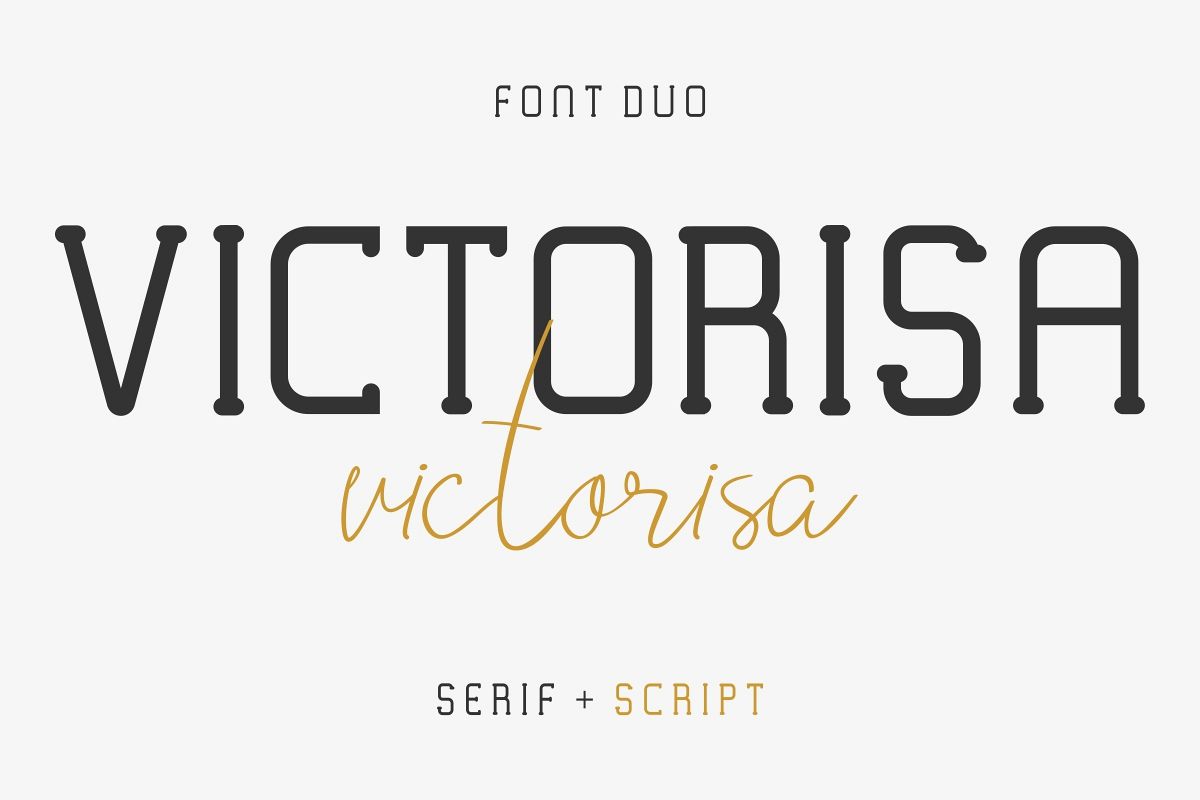
VICTORISA
Yoyoyo, Hi Everyone! Introducing our newest font : Victorisa !There are FIVE FONTS on this family.This is a new modern elegant sans + script font. It has a fresh, exclusive and stylish glyph. Will be Great for branding, logo, stationery, business card, signage, flyer, brochure etc. There are many industries that is suitable for this font : construction, real estate, services, law firmOn the package, You’ll get OTF, TTF, WOFF and Readme fileThis font will Work on PC & Mac with Simple installations. Accessible in the Adobe Illustrator, Adobe Photoshop, Adobe InDesign, even work on Microsoft Word. It’s also PUA Encoded Characters – Fully accessible without additional design software.Purchase with confidence! =)